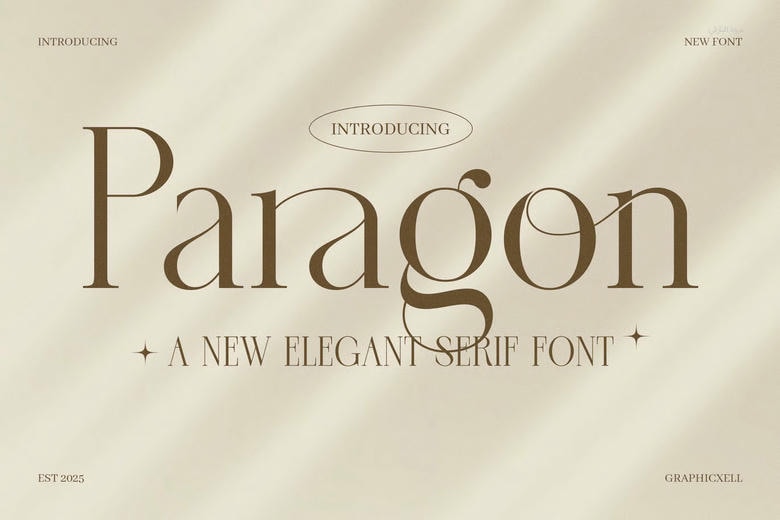
Paragon Serif Font
Paragon Serif Font is an ideal combination of chic and eternal beauty to any creative work. The lines of this serif font are clean and the shapes and lines are balanced and have very slight details which make your work look professional and polished. Paragon Serif will make your text be clear and stylish regardless of whether it is a logo, headline or body text.
The strength of this font is that it is versatile. It is easy to use it on print or electronic projects. Moreover, its traditional serif typeface blends the tradition and contemporary simplicity. Consequently, your brand or publication is going to look credible and sophisticated.
The contrast of the smooth curves and sharp edges are created in such a manner that the attention is caught at once. Also, Paragon Serif is compatible with the fonts of the sans-serif type, which also allows you to create new and innovative layouts. Or you can play it alone to project a powerful and classy message. It is a multilingual font with a wide range of weights that leave you with several choices to create your design.